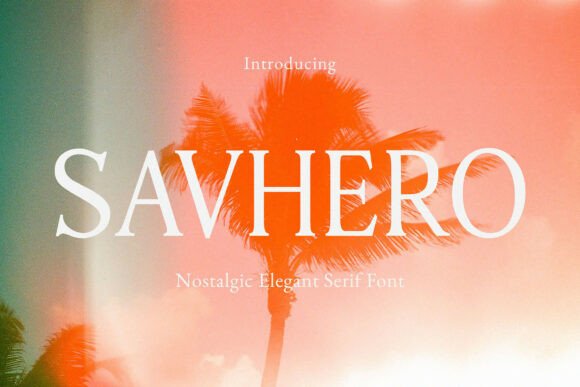
Savhero Font: Elevate Your Designs with Elegance and Nostalgia
In the world of typography, fonts play a crucial role in conveying the tone and personality of a brand or design. With the vast array of fonts available, finding the perfect one that exudes elegance, sophistication, and nostalgia can be a daunting task. However, if you’re looking for a font that embodies these qualities, look no further than Savhero Font. In this article, we’ll delve into the world of Savhero Font, exploring its features, benefits, and uses, as well as provide tips on how to incorporate it into your designs.
Introducing Savhero Font
Savhero Font is a modern serif font that boasts an elegant style, perfect for those seeking to add a touch of sophistication to their designs. This font is designed to evoke a sense of nostalgia, reminiscent of classic typography, while still maintaining a contemporary feel. With its clean lines, precise curves, and balanced proportions, Savhero Font is an excellent choice for a wide range of design applications.
Key Features of Savhero Font
- Elegant Serif Design: Savhero Font features a classic serif design with a modern twist, making it perfect for branding, logos, and high-end designs.
- Modern and Sophisticated: This font exudes a sense of sophistication and modernity, making it ideal for designs that require a touch of elegance.
- Nostalgic Feel: Savhero Font’s classic design elements evoke a sense of nostalgia, perfect for designs that require a vintage or retro feel.
- Versatile: This font is suitable for a wide range of design applications, including branding, logos, invitations, magazines, product packaging, and more.
Benefits of Using Savhero Font
Using Savhero Font in your designs offers numerous benefits, including:
- Enhanced Elegance: Savhero Font adds a touch of sophistication and elegance to your designs, making them stand out from the crowd.
- Improved Readability: The clear and precise design of Savhero Font ensures excellent readability, making it perfect for body text and headings.
- Unique Identity: Savhero Font’s distinctive design elements help create a unique identity for your brand or design, setting it apart from others.
- Flexibility: This font is suitable for a wide range of design applications, making it an excellent addition to your font library.
Uses of Savhero Font
Savhero Font is an incredibly versatile font that can be used in various design applications, including:
- Branding and Logos: Create a lasting impression with Savhero Font’s elegant and sophisticated design.
- Invitations and Stationery: Add a touch of elegance to your invitations, business cards, and letterheads.
- Magazines and Editorials: Use Savhero Font for headings, subheadings, and body text to create a cohesive and sophisticated design.
- Product Packaging: Elevate your product packaging with Savhero Font’s modern and elegant design.
Tips for Using Savhero Font
To get the most out of Savhero Font, follow these tips:
- Pair with Other Fonts: Experiment with pairing Savhero Font with other fonts to create a unique and visually appealing design.
- Adjust Font Sizes: Adjust font sizes to create a clear hierarchy of information and emphasize key elements.
- Play with Colors: Experiment with different colors to find the perfect combination that complements your design.
- Use Ligatures: Take advantage of Savhero Font’s ligatures to add a touch of elegance and sophistication to your design.
In conclusion, Savhero Font is an exceptional addition to any designer’s font library. Its elegant and sophisticated design, nostalgic feel, and versatility make it perfect for a wide range of design applications. By incorporating Savhero Font into your designs, you’ll be able to elevate your brand or design to new heights, conveying a sense of refinement and elegance that will leave a lasting impression on your audience.